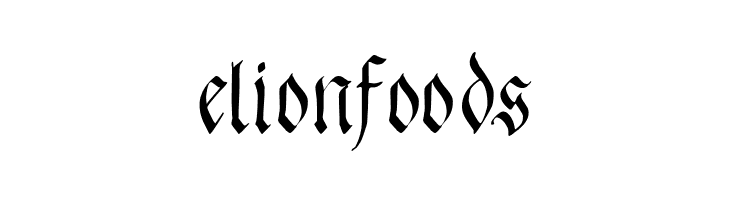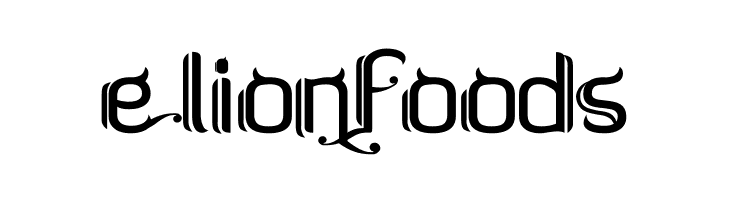
A dynamic and flowing script font with elegant, cursive letterforms.
A cursive, handwritten-style font with elegant loops and swashes.
A decorative font with intricate, symbol-like characters inspired by ancient motifs.
A bold, graffiti-inspired font with a dripping paint effect, ideal for urban-themed designs.
A bold, brush-style font with dynamic and expressive strokes.
A bold, playful handwritten font with a casual and friendly style.
A playful, bold handwritten font with a casual and friendly appearance.
A bold, playful handwritten font with thick, rounded strokes.
A bold, hand-drawn font with a rough, textured appearance.
A playful, rounded font with a casual, handwritten style.
A playful, hand-drawn style font with rounded, consistent strokes.
A bold, expressive script font with fluid strokes and elegant slant.
A bold, flowing script font with a modern, playful style.
An artistic, splattered font with a dynamic, abstract expressionist style.
A playful and dynamic font with a blend of curves and straight lines.
A bold, playful font with rounded, slightly condensed characters.
A bold, expressive script font with flowing, cursive letterforms and artistic swashes.
A bold, modern script font with elegant loops and high contrast.
A playful, hand-drawn font with a whimsical and friendly style.
A bold, expressive script font with flowing, cursive characters.
A playful, decorative font with heart motifs and bold, modern characters.
A modern, geometric font with a digital, stencil-like design.
A bold, modern sans-serif font with geometric lines and high readability.
A bold, geometric sans-serif font with a modern and clean design.
A clean, modern font with a minimalist design and consistent stroke thickness.
A modern, geometric sans-serif font with a clean and minimalistic design.
A thin, modern font with geometric influences and uniform strokes.
An elegant cursive font with flowing, sophisticated strokes.
A classic serif font with elegant, sharp serifs and a timeless appeal.
A playful handwritten font with a quirky, casual style.
A playful and casual handwritten font with dynamic strokes.